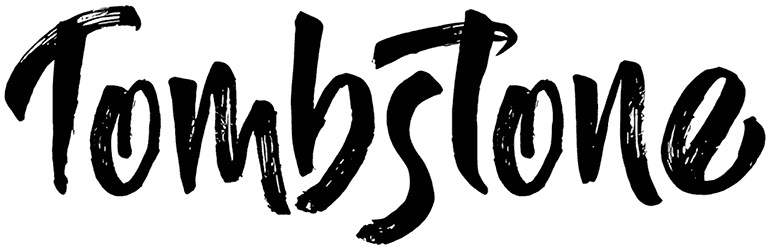
Tombstone Font
If you are looking for a creative brush font that seems creepy yet fun, here is Tombstone for you. It conveys a natural feel to your project and has a bold, dry, and rough texture. You can use this versatile font for movie posters, stationery brands, book covers, shopping bags, café menu titles, and many other designs.